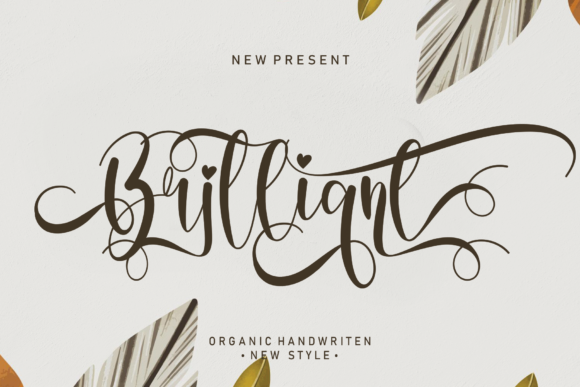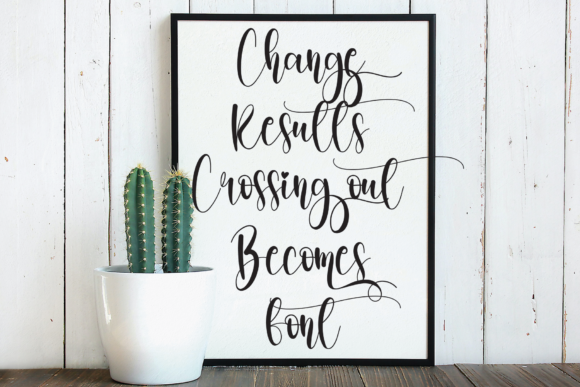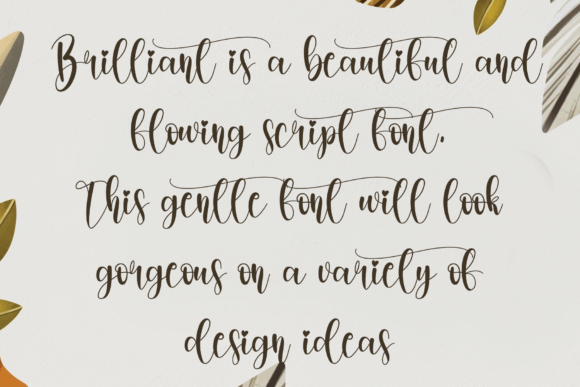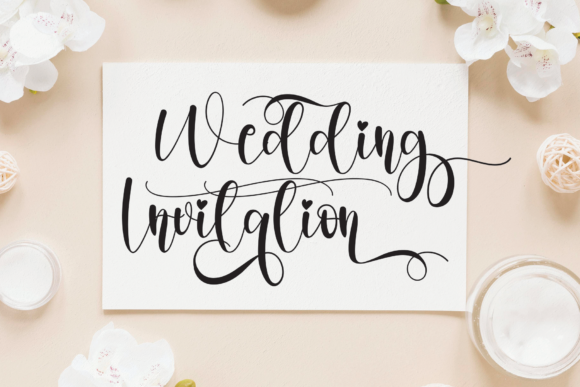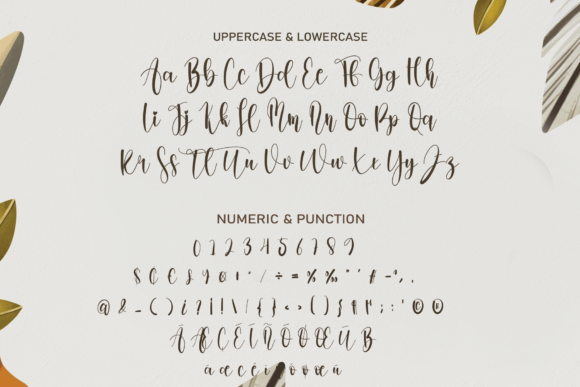
Brilliant Font
About Brilliant Font
Brilliant is a romantic and dazzling calligraphy typeface with characters that dance along the baseline. It will add a luxury spark to any design project that you wish to create! This font is PUA encoded which means you can access all of the amazing glyphs and ligatures with ease!